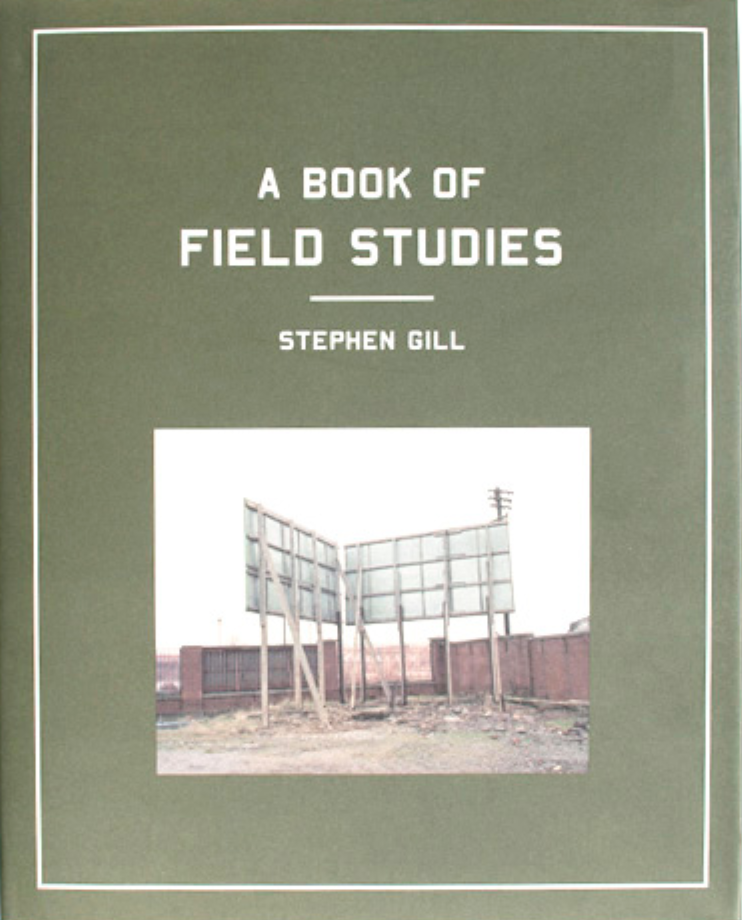
Sans used on A Book of Field Studies by Stephen Gill released 2004
I think it’s
AF Carplates
Bold – or maybe anther font based on the British license plates.